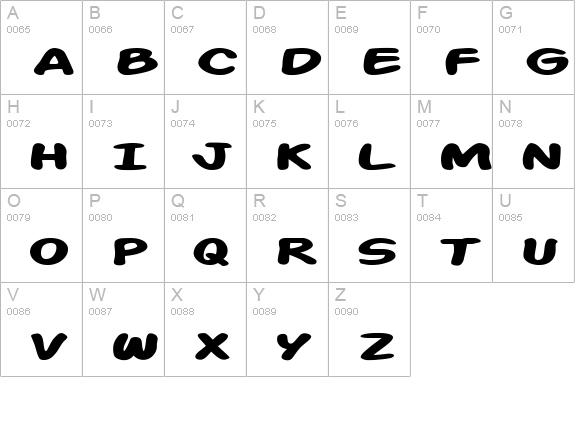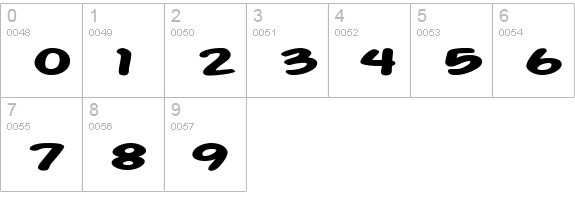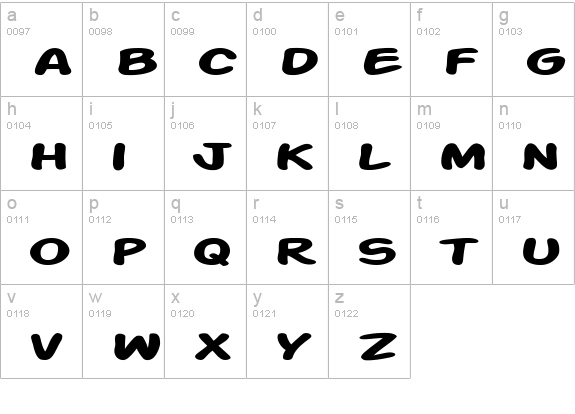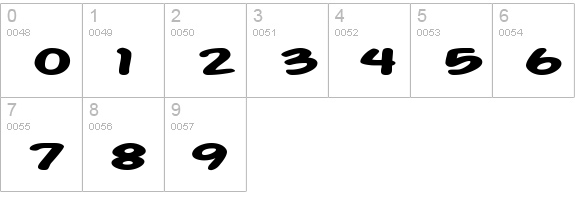
Action Man Extended Bold is a strong, high-contrast, extended-width variant in the Action typeface family \xE2\x80\x94 well suited to headlines, attention-grabbing titles, and strong calls-to-action.
Action Man Extended Bold is a dynamic and powerful display font that exudes strength and energy. With its bold and striking letterforms, this font is perfect for making a statement in your designs. Whether you are creating posters, banners, or headlines, Action Man Extended Bold will grab your audience's attention and leave a lasting impression. The best part is that Action Man Extended Bold is available for free download at FontsMarket.com. This means you can easily add this versatile font to your collection without having to spend a penny. Don't miss out on the opportunity to enhance your designs with the impactful and eye-catching Action Man Extended Bold font today!